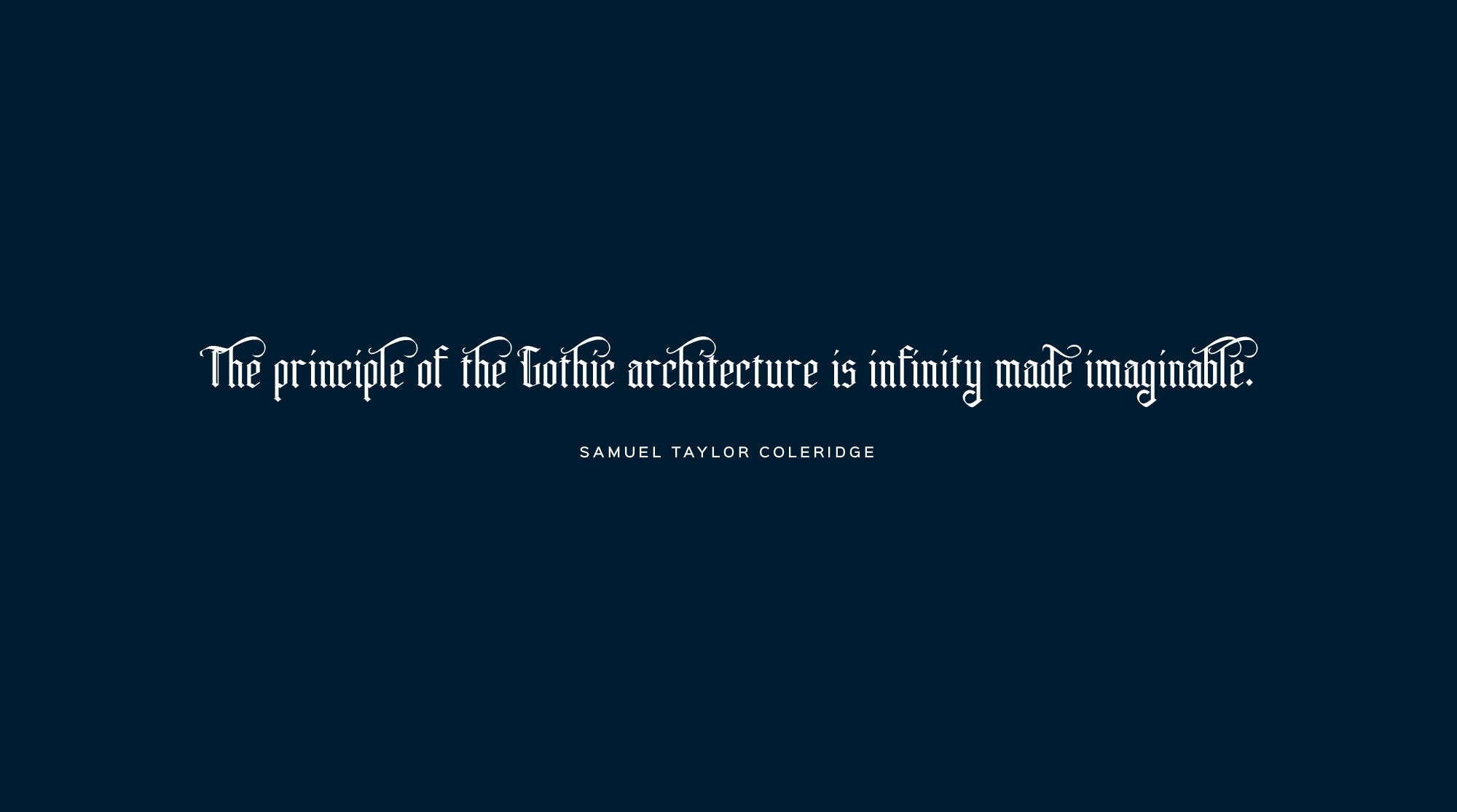
Rhama Gothic Typeface
Introducing Rhama Typeface! Rhama designed and shared by Graphicpear. This is a gothic typeface, designed in classic style. Rhama Gothic is a traditional blackletter typeface, and this makes it fit and perfect for any project that needs blackletter.